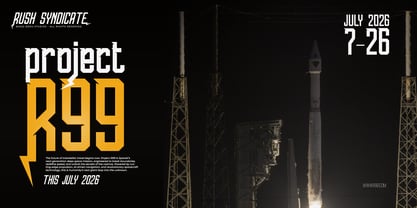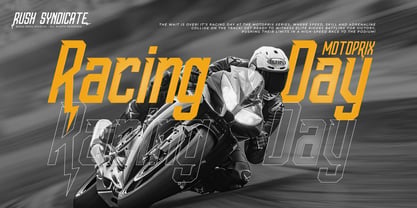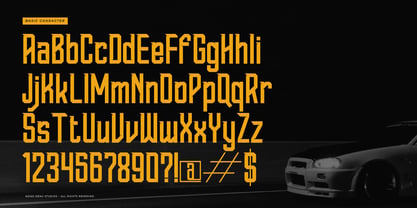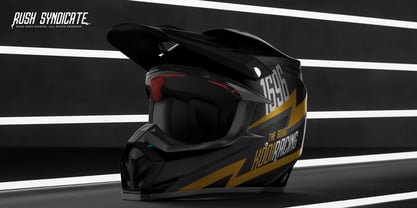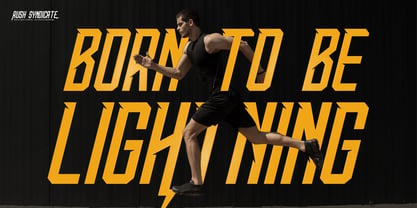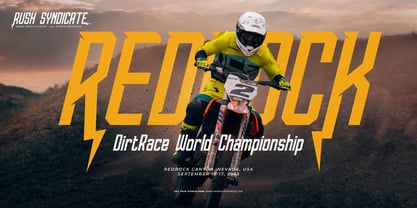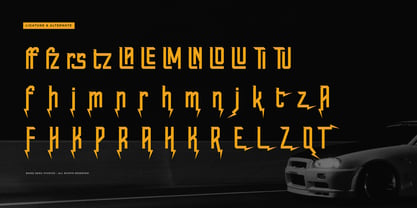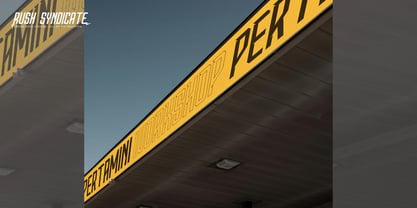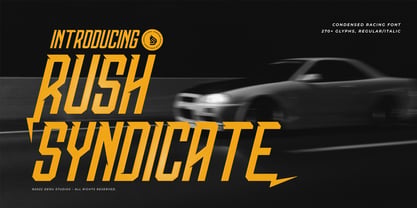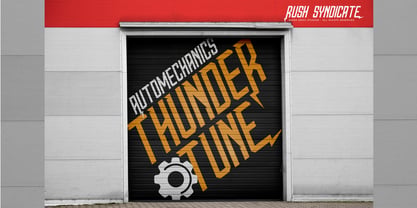
Rush Syndicate
by Denustudio
The Rush Syndicate Font Family was designed by Dede Nugraha and published by Denustudio. Rush Syndicate contains 2 styles and family package options. More about this family
Rush Syndicate | Condensed Racing Font, from Denustudios, suitable for any projects such as: logos, branding projects, homeware designs, product packaging, mugs, quotes, posters, shopping bags, t-shirts, book covers, name card, invitation cards, greeting cards, label, photography, watermark, special events, and all your other lovely projects that need Condensed Racing Font a taste.
• Regular and Italic
• Standard glyphs
• Alternate and Ligature
Designers: Dede Nugraha
Foundry: Denustudio